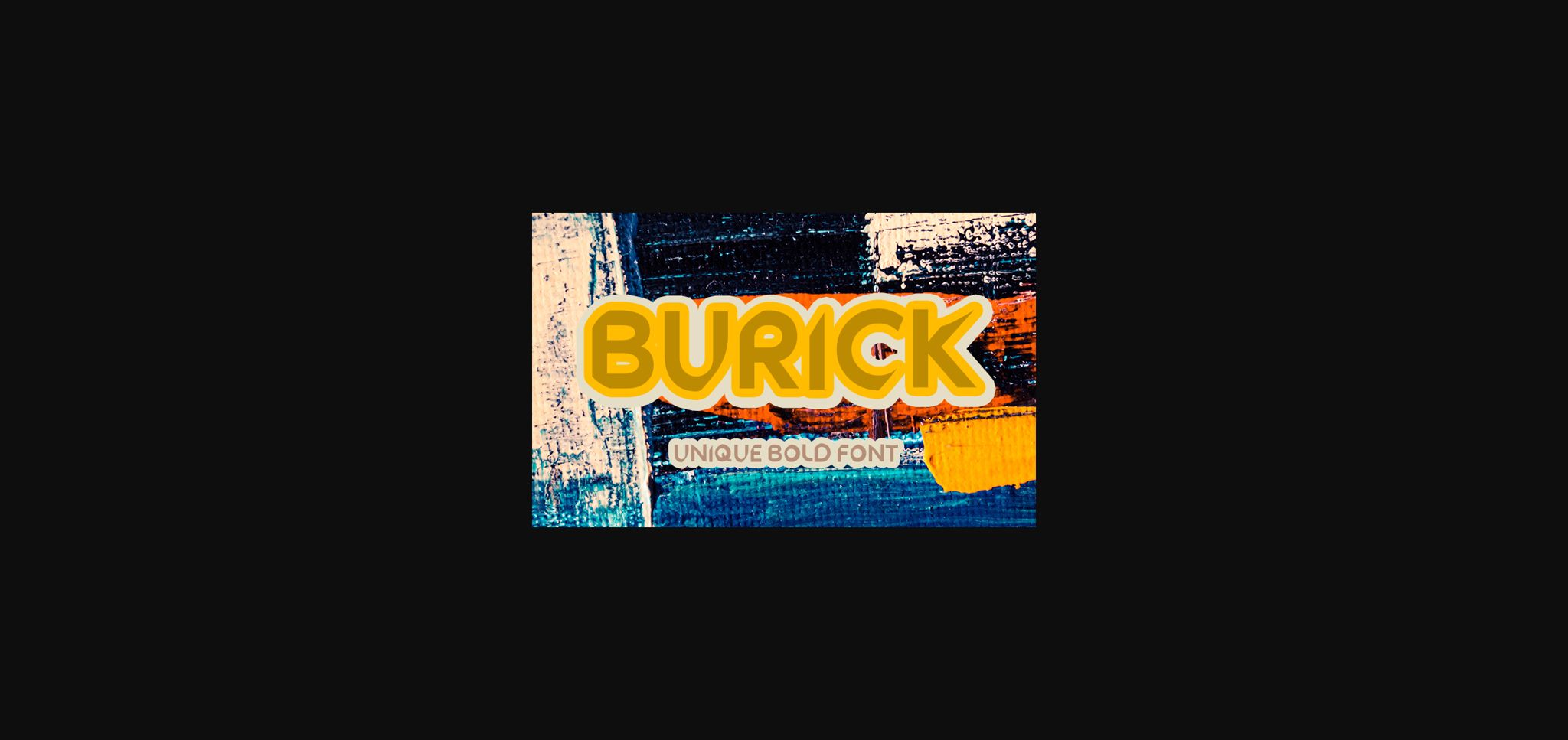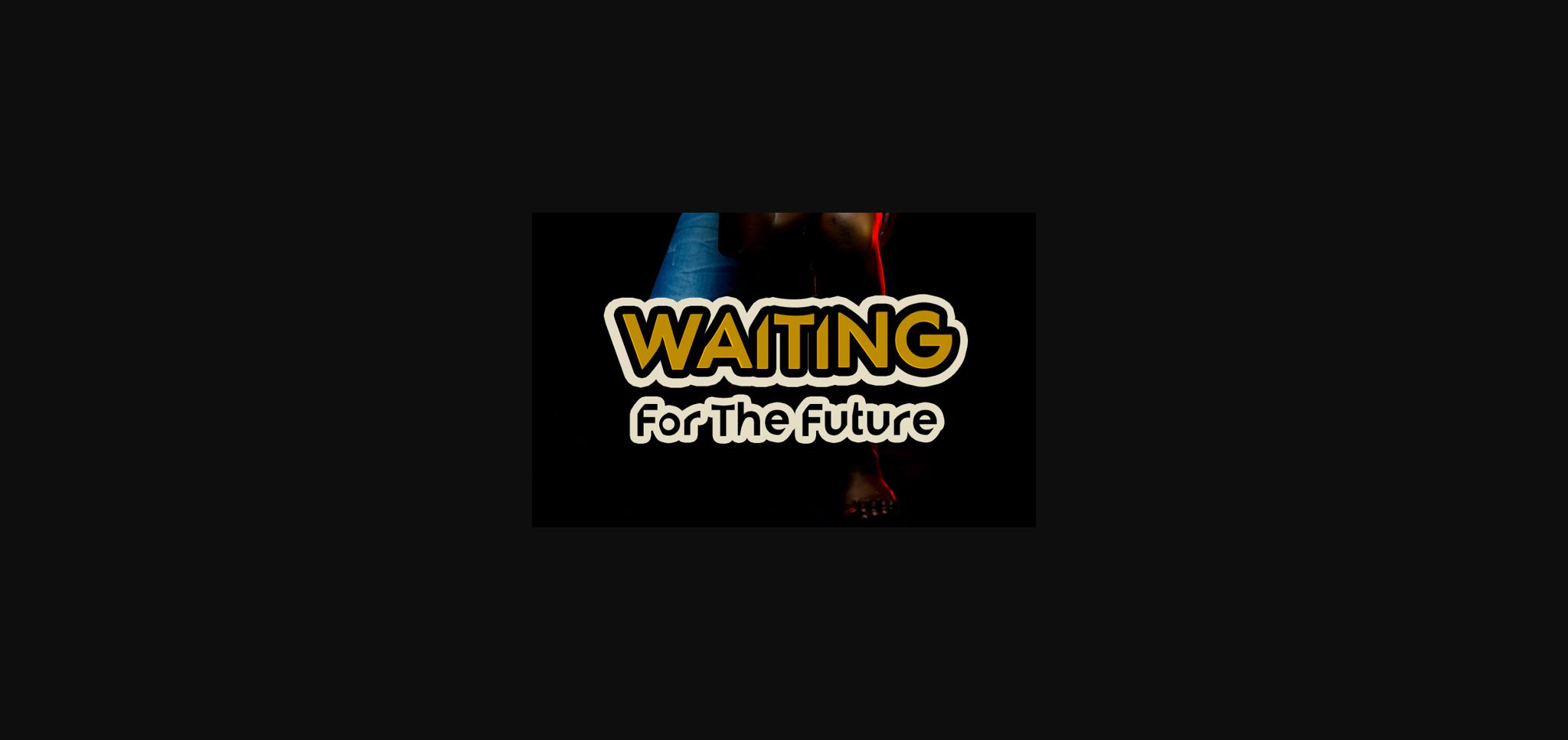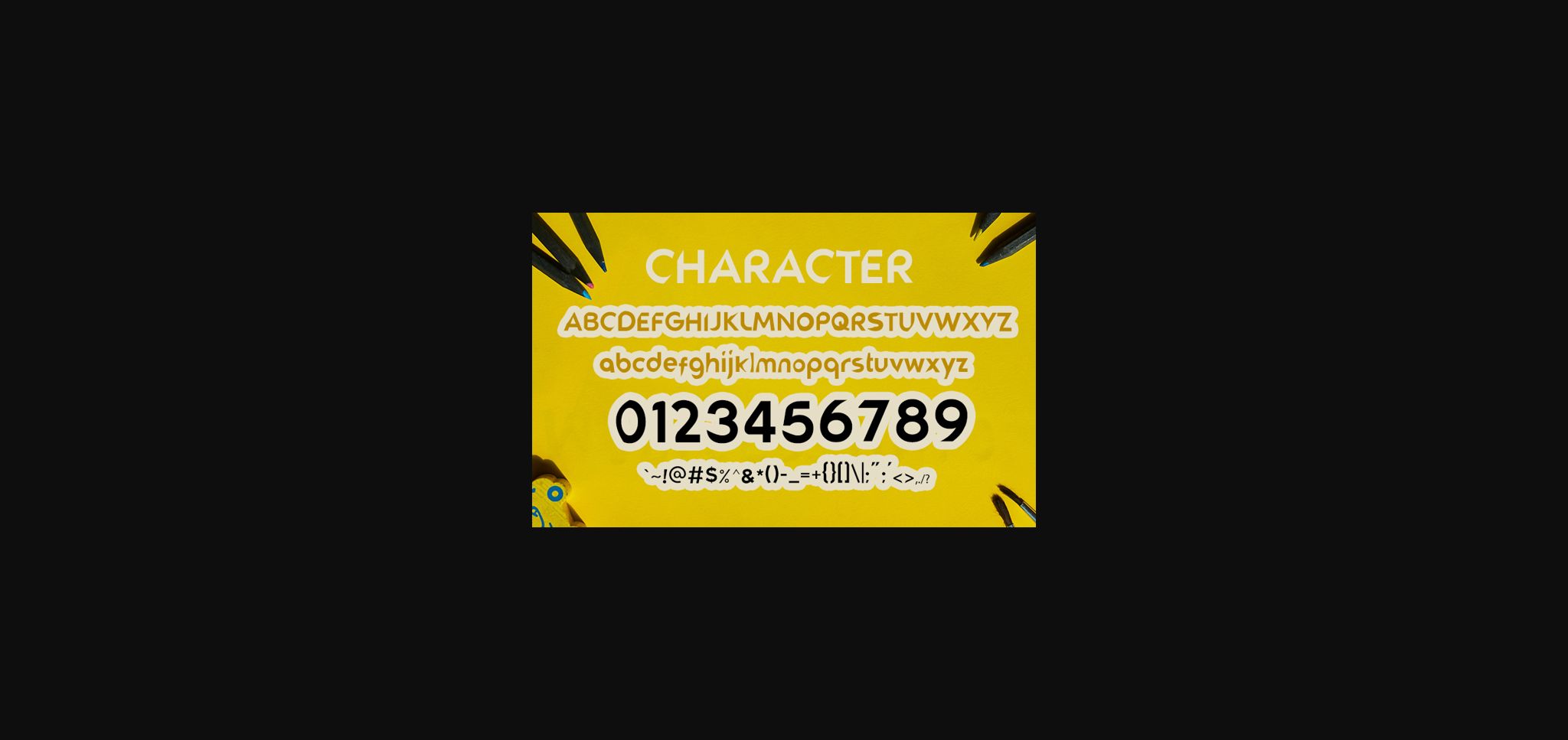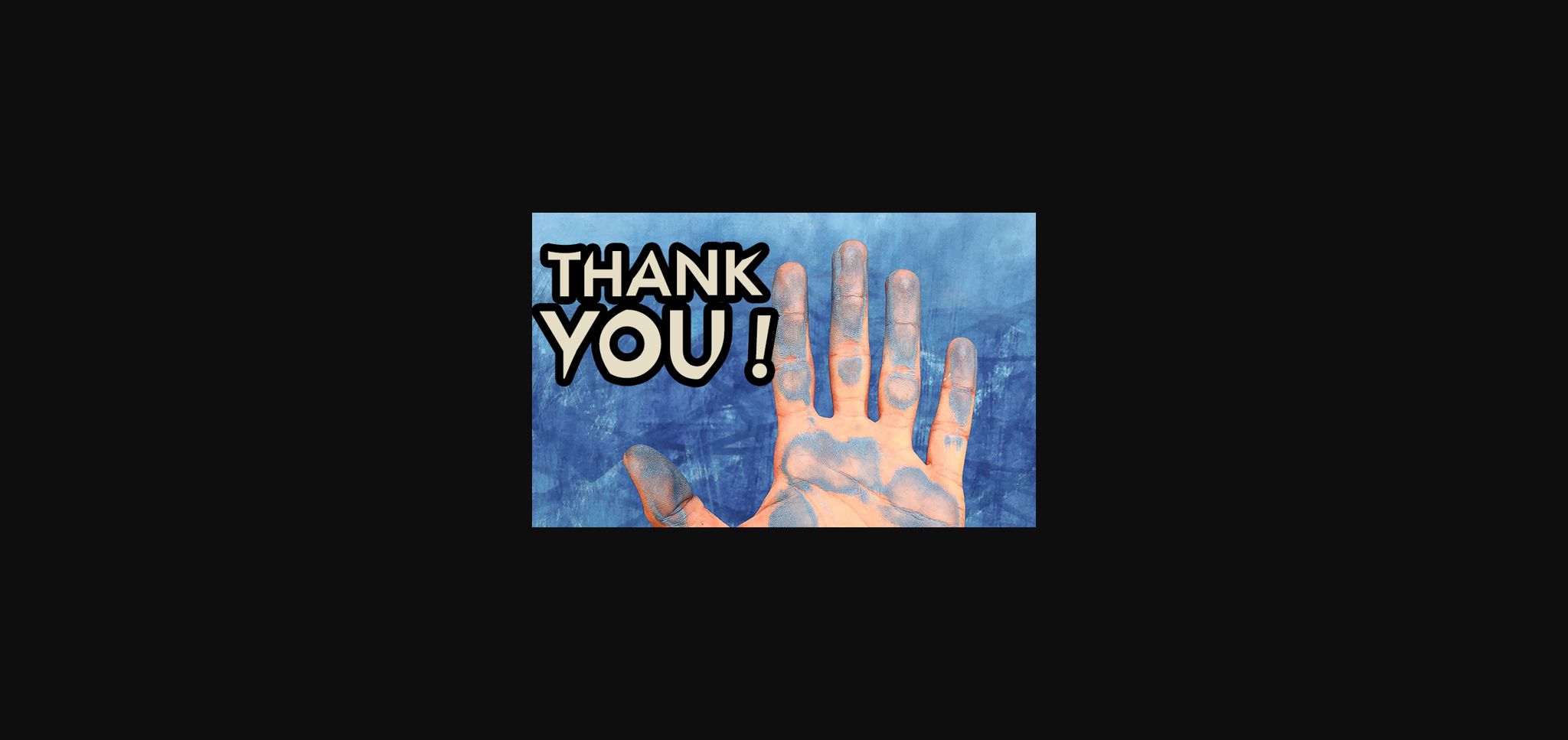
About Burick Font
Burick is a bold sans serif font, carefully handcrafted to become a true favorite. This font will look outstanding in any context, whether it’s being used on busy backgrounds or as a standalone headline!